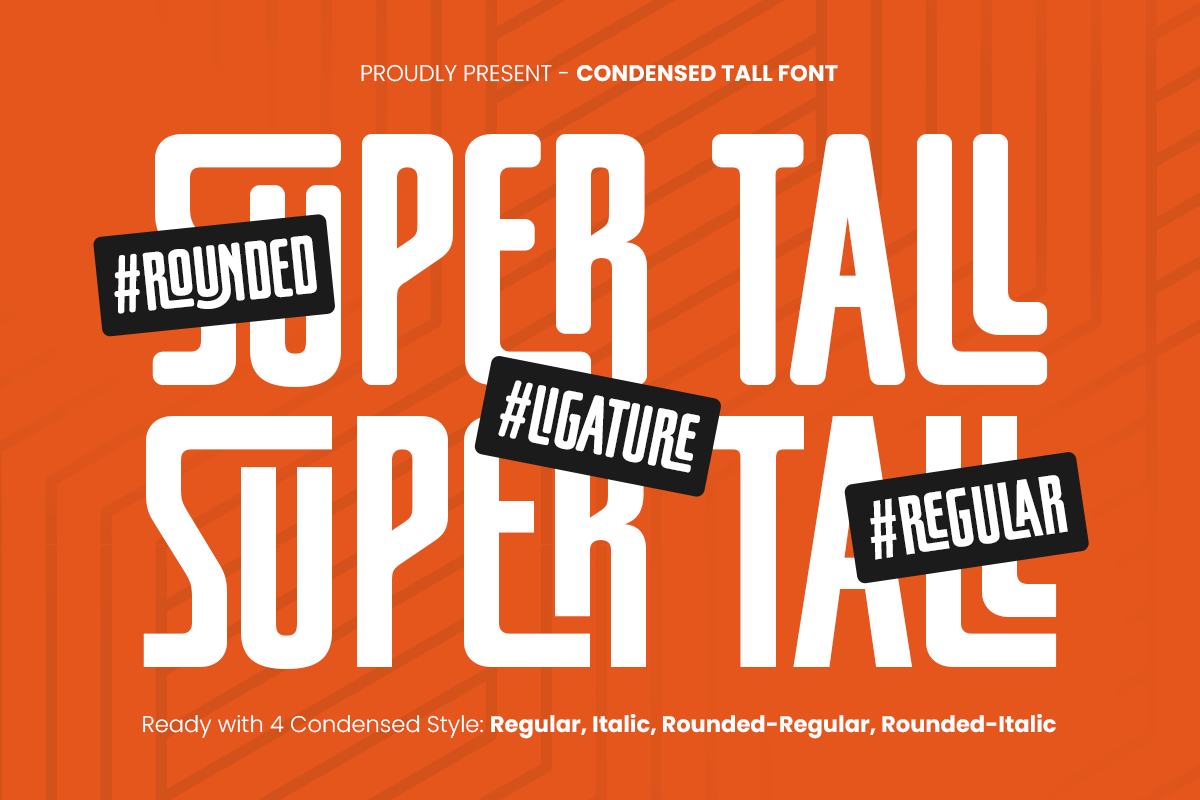
Super Tall
-Condensed Tall Font
Super Tall is a sleek and condensed tall font that stands out with its modern and stylish appeal. Designed to make a statement, this typeface is perfect for contemporary branding, impactful headlines, and minimalist design projects. Its elongated structure adds a sense of elegance and authority, making any text visually captivating.
Ideal for both digital and print applications, Super Tall offers versatility and readability without compromising on sophistication. Whether you're creating a magazine cover, logo, or eye-catching advertising content, this font delivers a powerful and confident aesthetic that draws attention.
Transform your design projects with Super Tall, where bold height meets modern simplicity. Enhance your visual content with this unique typeface that combines style, clarity, and artistic impact.
Super Tall Condensed Tall Font Features:
• Sleek and Condensed Character Designs
• Available with 4 Styles: Regular, Regular Italic, Rounded, Rounded Italic
• Ready with Very Unique Ligature Characters
• Punctuation, Number, and Symbol